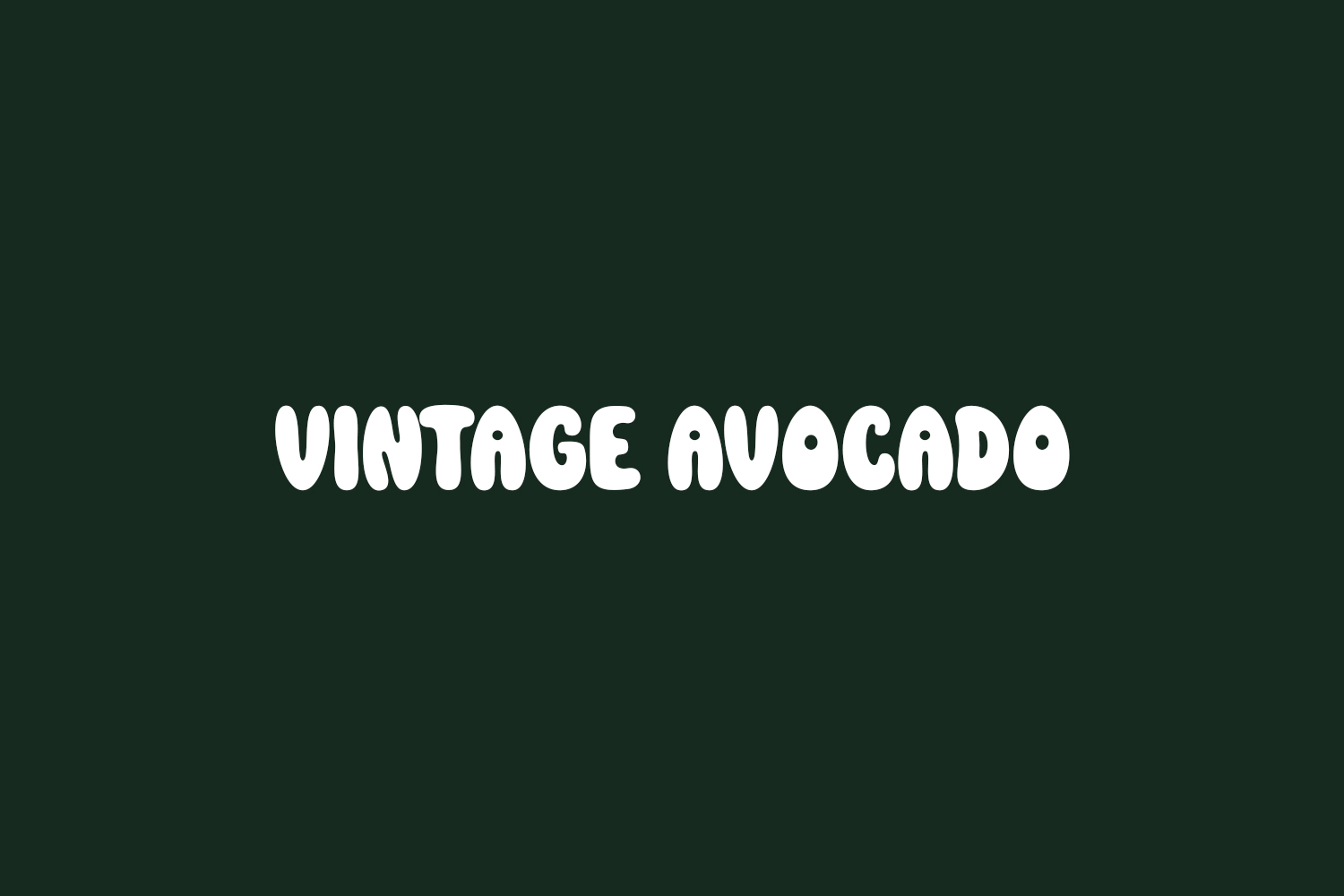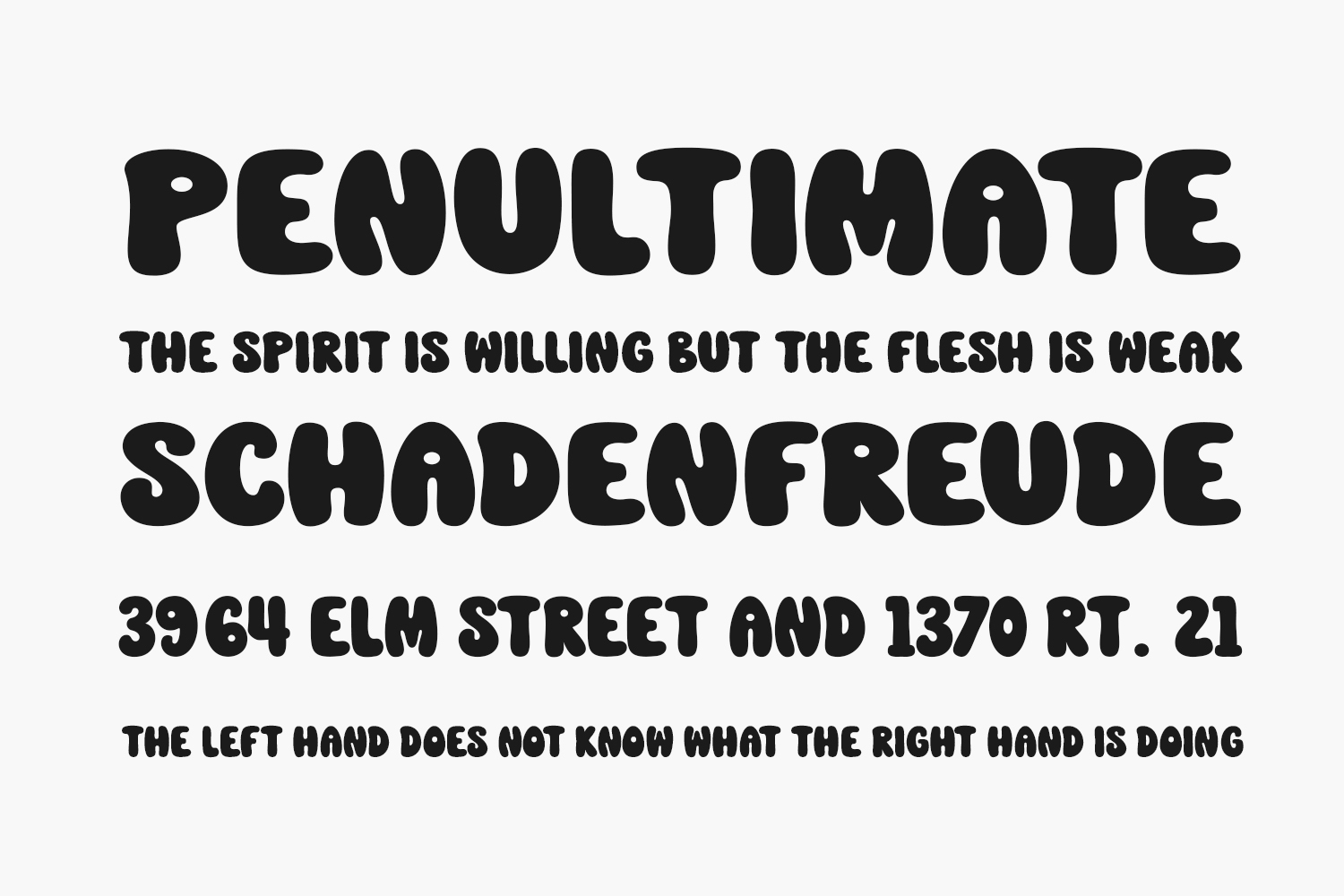
Vintage Avocado Free Font is a groovy display font. This font is perfect for creating t-shirts, stickers, cover books, children’s books, social media posts, and much more. Vintage Avocado Free Font is free for personal or commercial use.
Designed by Hoperative